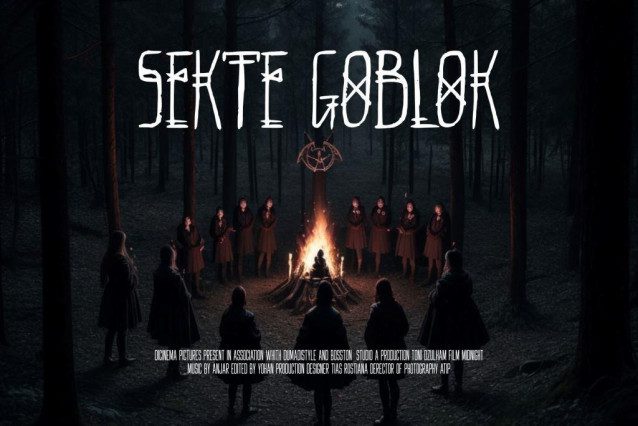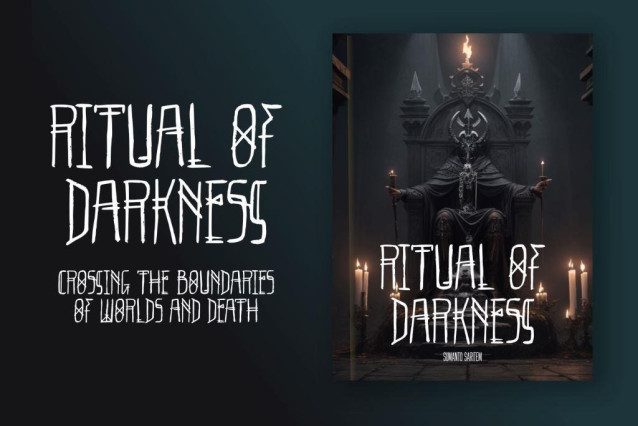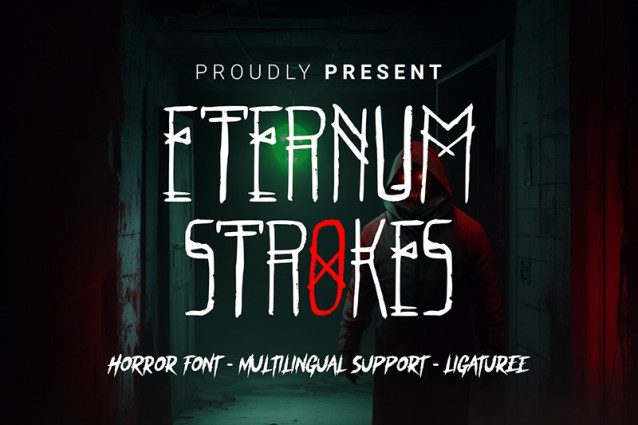
Eternum Strokes Font
Eternum Strokes Font is a typeface that embodies elements of horror and immortality, as if carved into ancient inscriptions full of mystery and darkness. With characteristics reminiscent of ancient inscription forms, this font creates an eerie and chilling atmosphere.